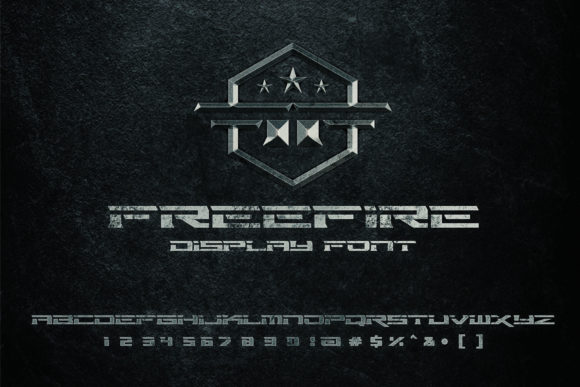
Step into a world where letters dance with energy and dynamism, where fonts ignite passion and fuel imagination. Introducing Free Fire Font, a creation by Herulogo, a visionary font artist who captured the essence of modern and sporty aesthetics. This display font is not just a collection of characters; it's an adrenaline rush for your designs, a spark that ignites creativity and propels your projects to new heights.
Immerse yourself in the world of gaming, extreme sports, and robotics, where Free Fire Font reigns supreme. Its sharp angles and bold strokes evoke a sense of speed, power, and precision. Each letter is a testament to the adrenaline-fueled moments that define these thrilling realms. Whether you're designing a website, creating posters, or crafting logos, Free Fire Font is your ultimate weapon, ready to conquer the digital battlefield.
With Free Fire Font, you'll find yourself captivated by its versatility. It's a font that seamlessly adapts to a multitude of design styles, from sleek and minimalist to bold and energetic. Its characters dance across the screen, commanding attention with their unique charm. Unleash your creativity and watch as your designs come alive with the dynamic energy of Free Fire Font.
At its core, Free Fire Font is a celebration of individuality and self-expression. Its distinct style empowers you to break free from the ordinary and embrace your unique voice. Whether you're an aspiring artist, a seasoned designer, or simply someone with a passion for typography, Free Fire Font is your gateway to unleashing your creative potential.
Don't let your designs settle for mediocrity. Ignite them with the fiery spirit of Free Fire Font. Experience the exhilaration of creating designs that resonate with passion, energy, and a touch of rebellion. Let Free Fire Font be your ally, pushing the boundaries of creativity and leaving an unforgettable mark on the world.